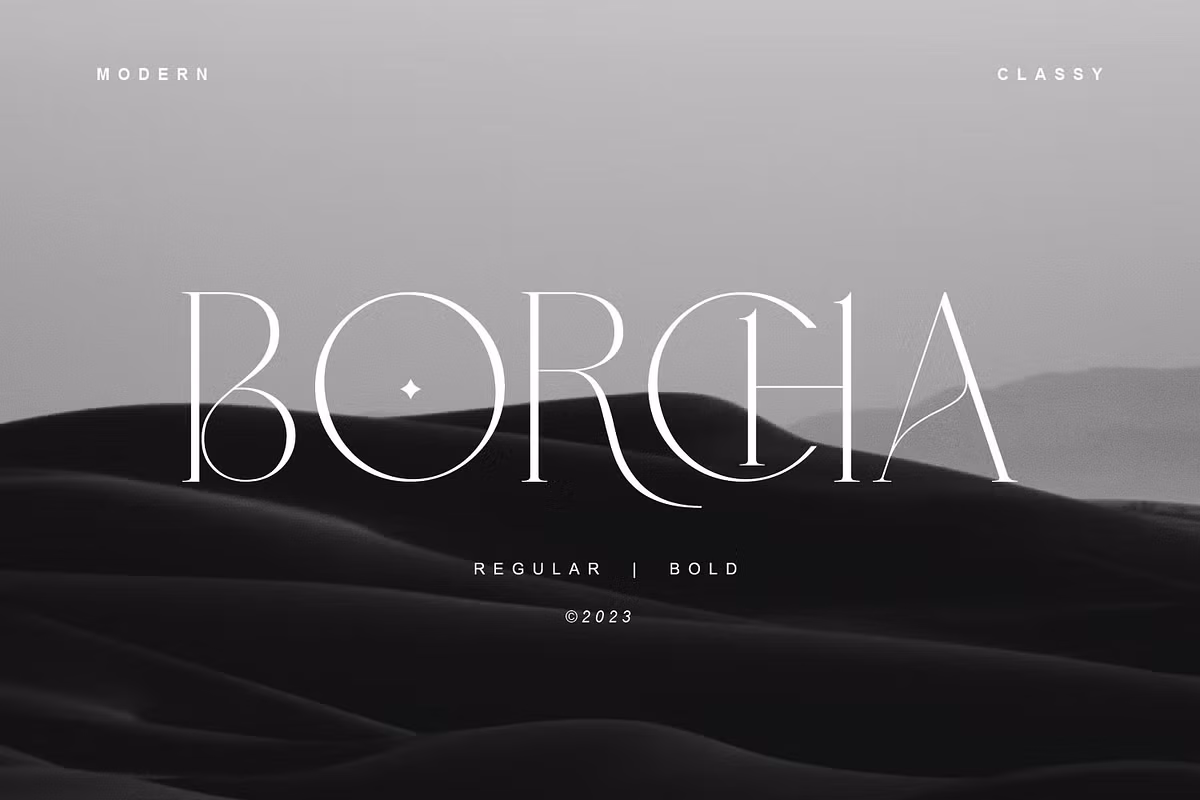
BORCHA Font Free Download is a bold and modern typeface designed for high-impact, contemporary designs. With its geometric shapes and clean lines, this font is perfect for branding, logos, posters, websites, and social media graphics. BORCHA combines strength and elegance, making it a versatile option for projects that require both readability and style.
Ideal for headlines, titles, and creative campaigns, BORCHA Font Free Download brings a contemporary and professional aesthetic to any design, giving it a sleek, modern edge.